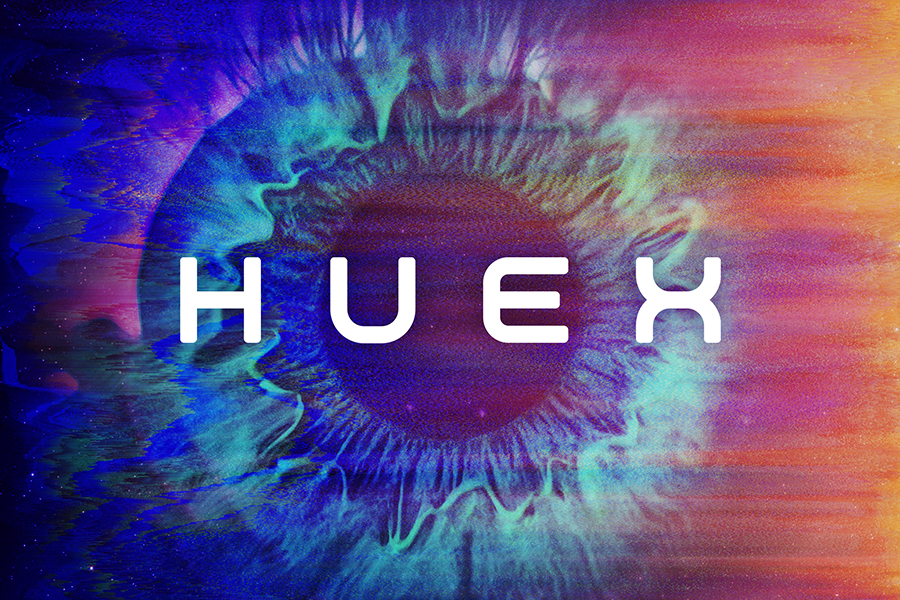
HUEX
HUEX-Regular
Between the search of the technological, the sporty and the futuristic, the construction of this source, the structure, the very stylized but strong lines, with a square box and the connections that provide that highly technical visual contrast. It is designed for any type of design that wants to represent that technological, futuristic essence, such as logos, posters, videos, etc.